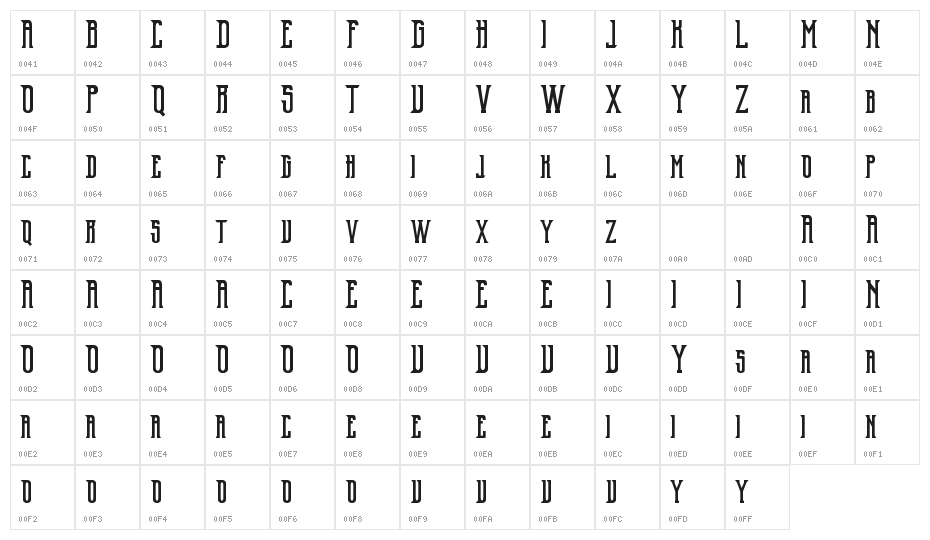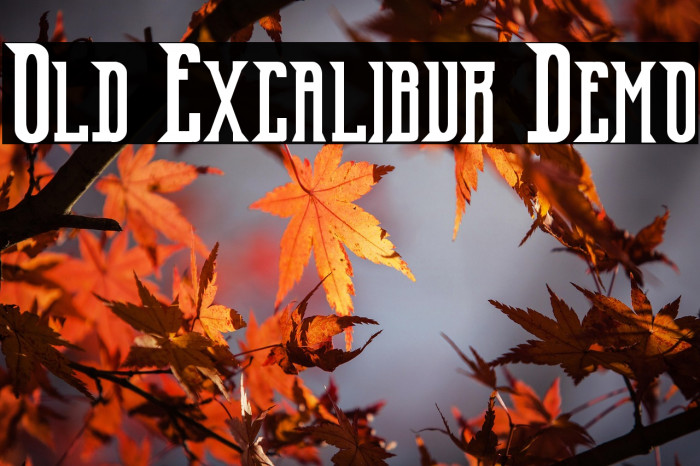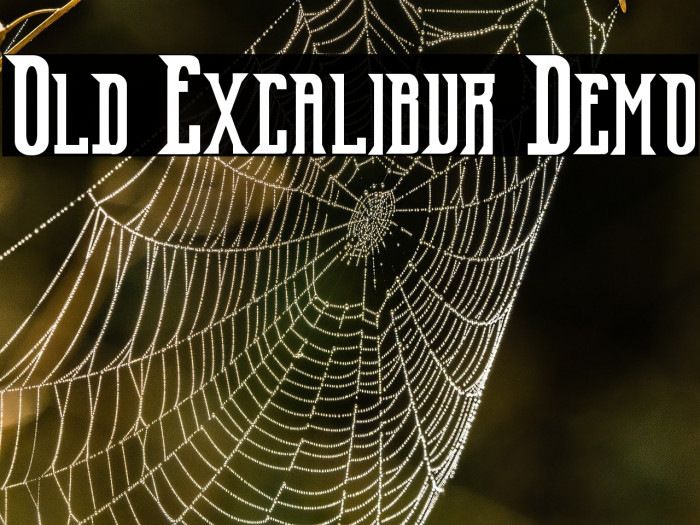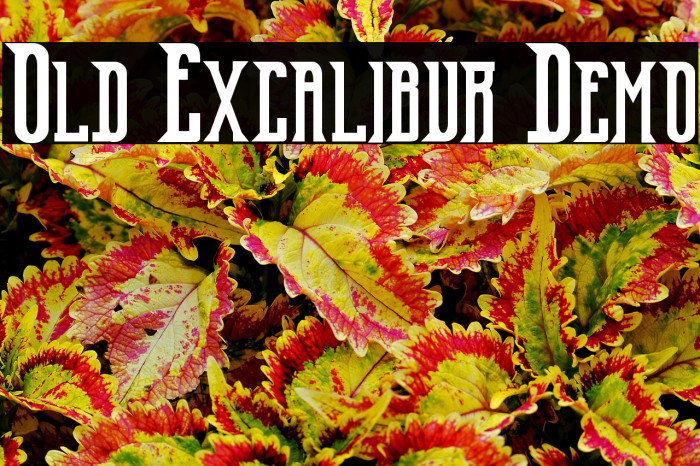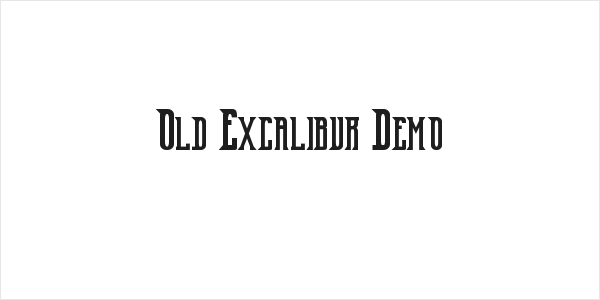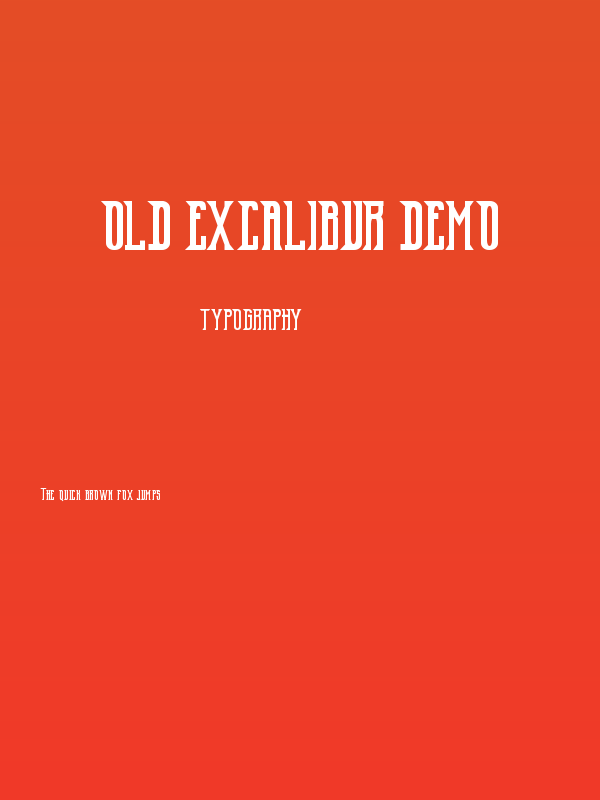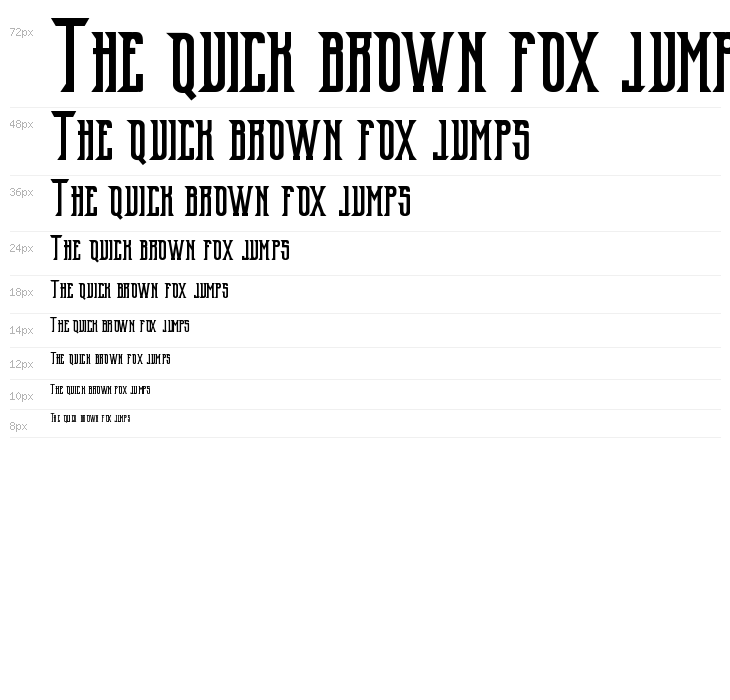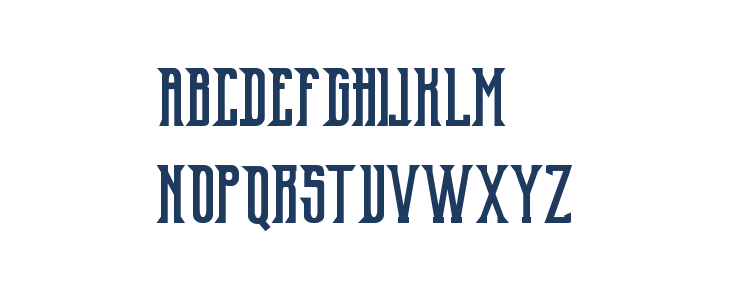
Old Excalibur Demo Font
Old Excalibur Demo Description
This font features a bold and striking design with sharp, angular lines and a medieval-inspired aesthetic. The uppercase letters are tall and narrow, with distinct serifs that add a touch of elegance and historical flair. The overall appearance is reminiscent of classic Gothic or Blackletter styles, making it ideal for projects that require a dramatic and eye-catching typeface. The font's strong presence and unique character make it suitable for use in headlines, logos, and other design elements where a bold statement is needed.
| Proposed Projects | Ideal for medieval-themed designs, fantasy book covers, video game titles, and branding that requires a dramatic flair. |